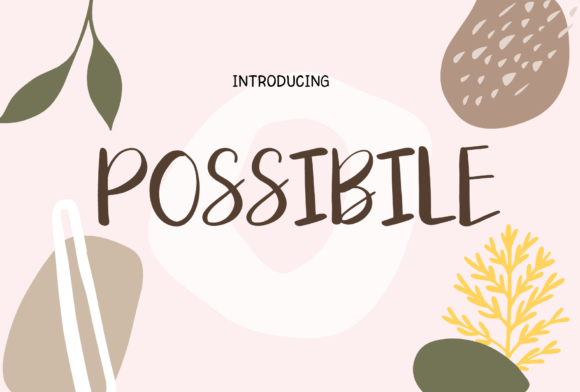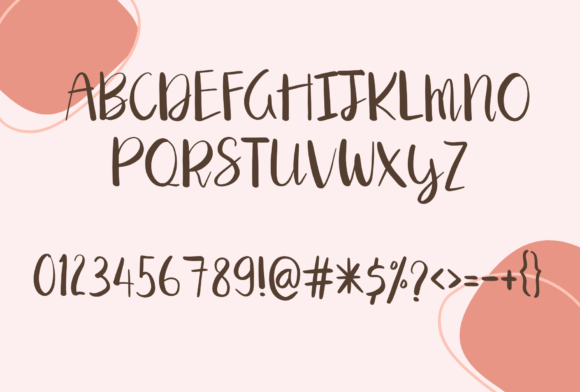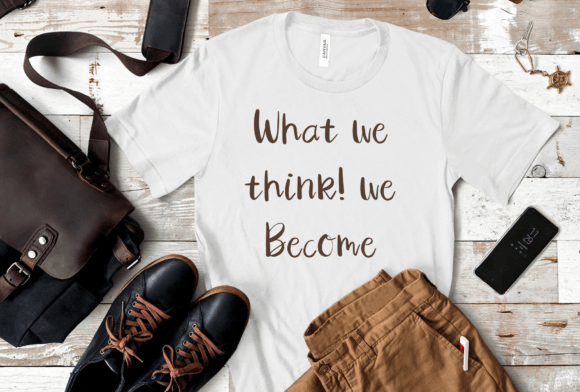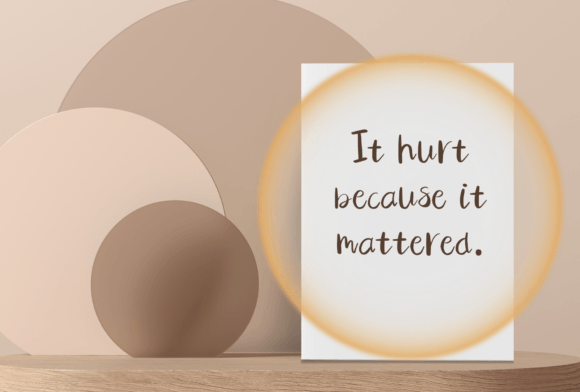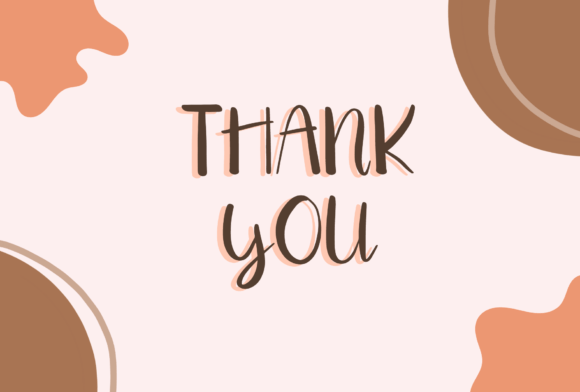
Possibile Font
Add a super cute and simple touch to your creative projects with the Possible font. This handwriting font is ideal for education and teaching materials. It is perfect for decorating presentations, advertisements, illustrations, and more.
The Possible font offers a clean and creative design that works well in many applications. Its friendly style makes it approachable and easy to read, which is especially useful for educational content and kids’ projects.
Each character in the Possible font is designed with simplicity and clarity in mind. This ensures that your presentations and teaching materials are both attractive and effective. The font is also great for advertising and marketing visuals that require a casual and inviting feel.
Despite its simple style, the Possiblefont remains highly readable at different sizes. Whether used for headings, body text, or decorative accents, it adapts perfectly to your needs.
Using this font will help your educational and creative materials stand out with a friendly and memorable style. If you want your work to look simple, cute, and effective, the Possiblefont is an excellent choice.
In summary, the Possiblefont fits many creative and educational projects. From teaching and presentations to advertising and illustration, it brings clarity and charm. Download it today and create lovely, versatile designs with this cute handwriting font.